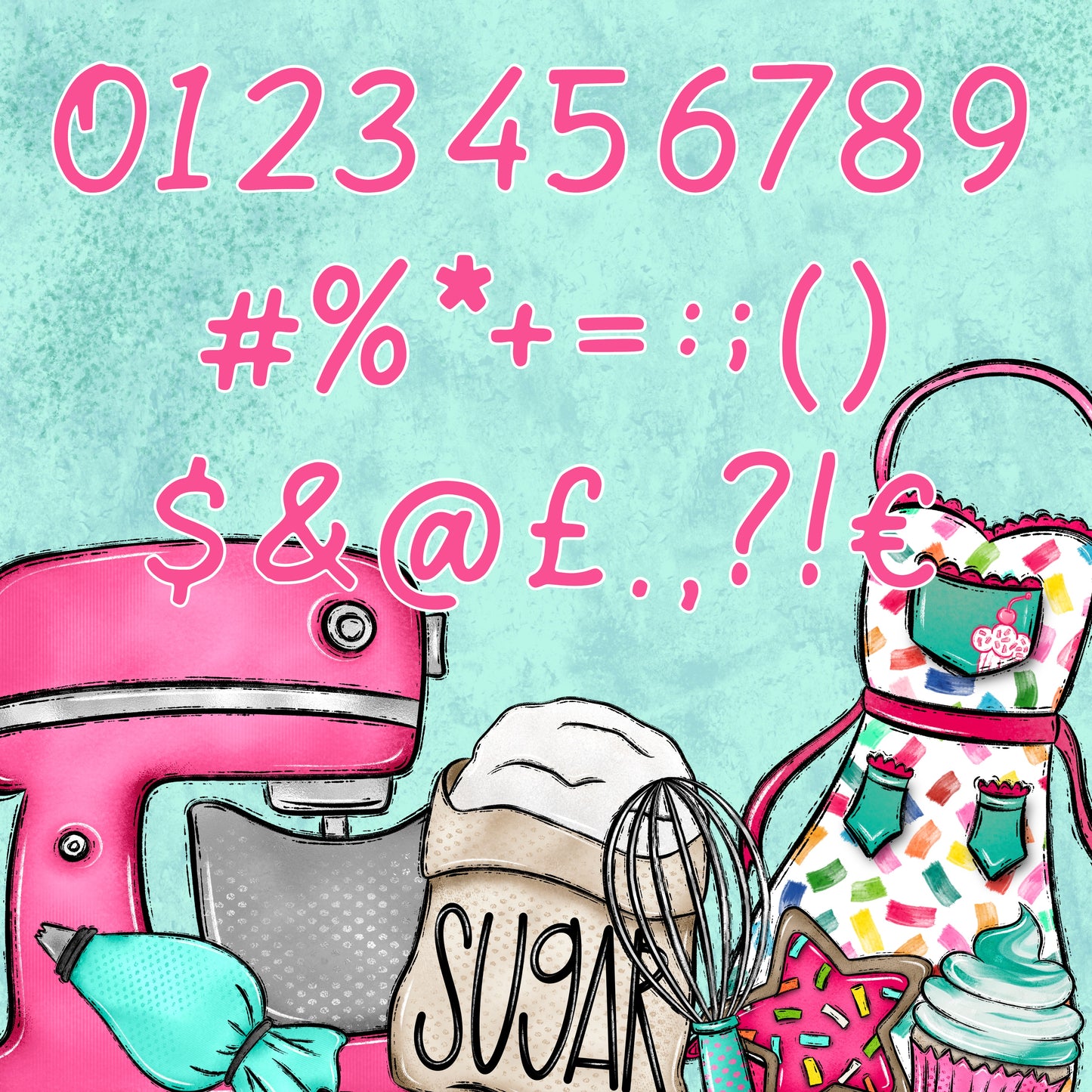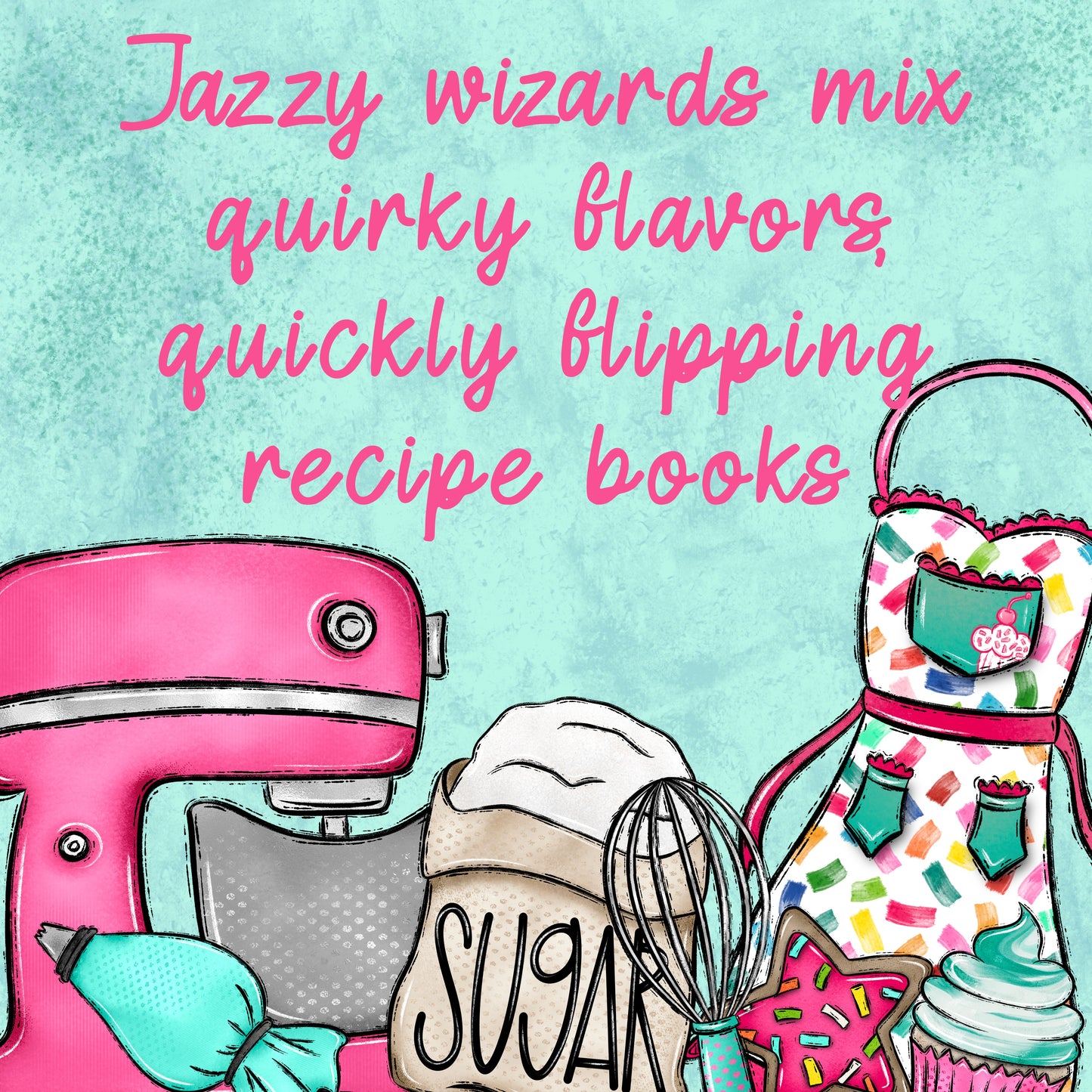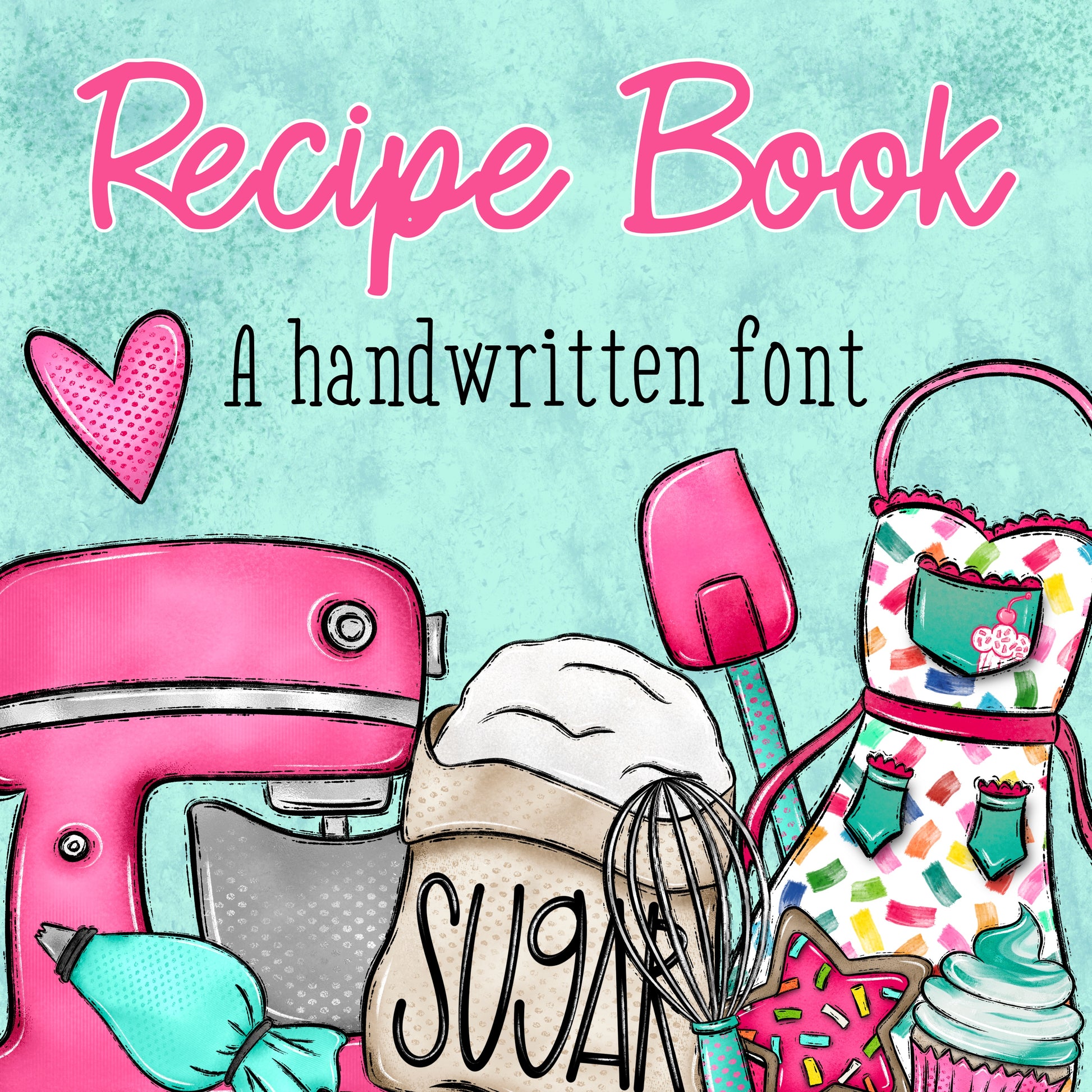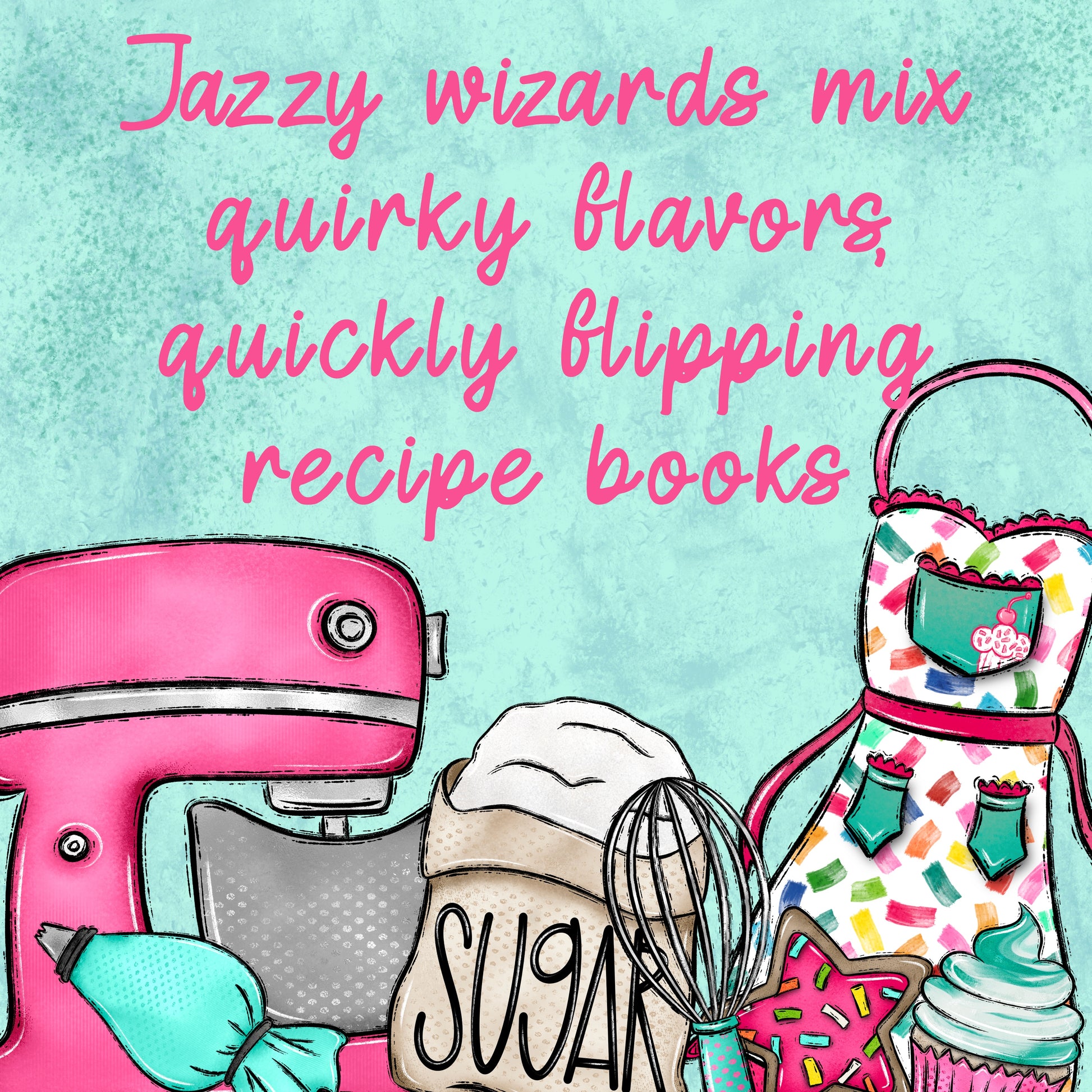
Recipe Book handwritten font
This charming handwritten font comes in OTF format and is ready to sprinkle a little personality into your designs! Perfect for shirts, mugs, signs, invitations, social media posts, and pretty much anything that needs that “handmade” vibe.